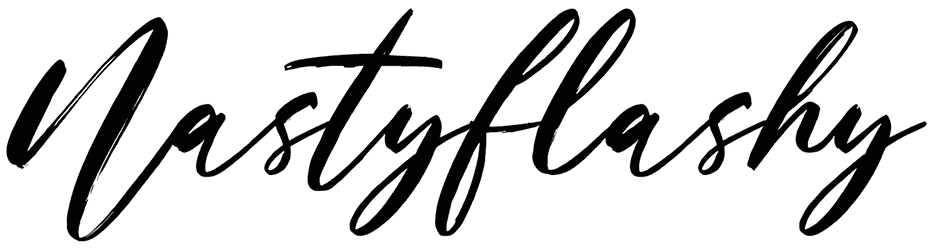
Nastyflashy Font
Illustrate your design with a classy and chic context and convey an adorable vibe. This handwritten font, named Nastyflashy, with its smooth and salient but kinda illegible brush lettering, would be a first-class show. With an A-Z cover of characters, this brush font will be an apt pick for many items, from flyers to invitation cards.